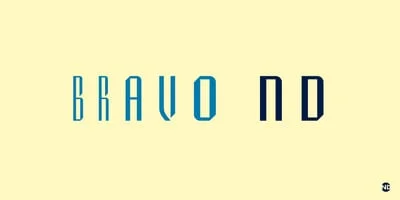
Bravo ND Font
Bravo ND Font is perfect for military-inspired branding, tactical equipment labels, aviation industry materials, aerospace company presentations, defense contractor communications, pilot training manuals, air force academy graphics, military ceremony programs, aviation museum displays, flight simulation interfaces, and any project that requires commanding aviation character with tactical precision appeal.
What makes Bravo ND Font exciting is its authoritative embodiment of military aviation excellence and tactical precision through bold letterforms that capture the disciplined professionalism of air force operations and aerospace engineering. This commanding typeface features strong, structured characteristics with military-grade clarity that convey reliability, precision, and unwavering commitment to excellence. The font's bravo character adds instant military credibility and aviation appeal to any design, making it perfect for organizations operating in defense, aerospace, and tactical industries.
Bravo ND Font comes in multiple font families including Regular, Bold, Light, Condensed, Tactical, and Aviation variations, providing designers with comprehensive options to create military compositions and achieve the perfect aviation aesthetic for defense-focused design projects.
Whether you're developing aerospace brand identity, creating military communication materials, or designing tactical campaign graphics, Bravo ND Font offers the perfect solution for projects demanding authentic military character and aviation sophistication. This authoritative typeface excels in display applications where tactical presence is essential, ensuring your designs communicate military excellence and aerospace precision. The structured character and aviation styling of Bravo ND Font make it an indispensable tool for designers who prioritize military aesthetics, aviation industry, and tactical communication excellence in their typographic selections.